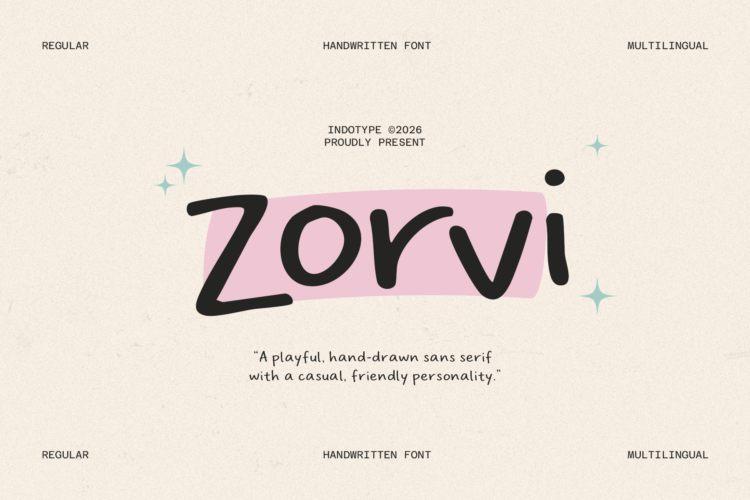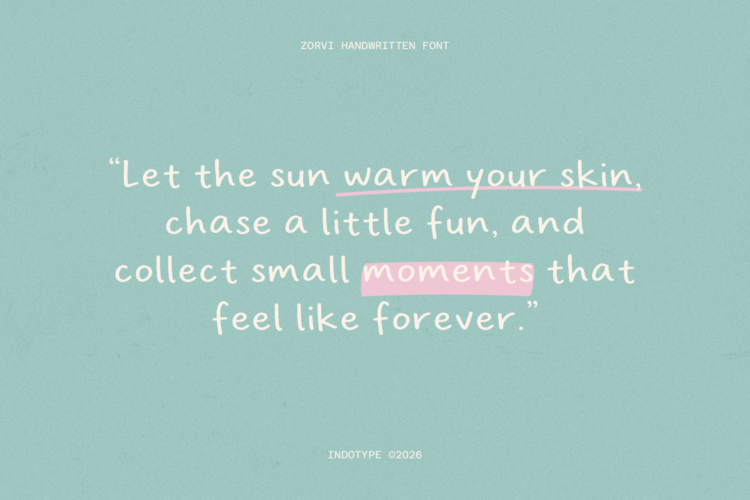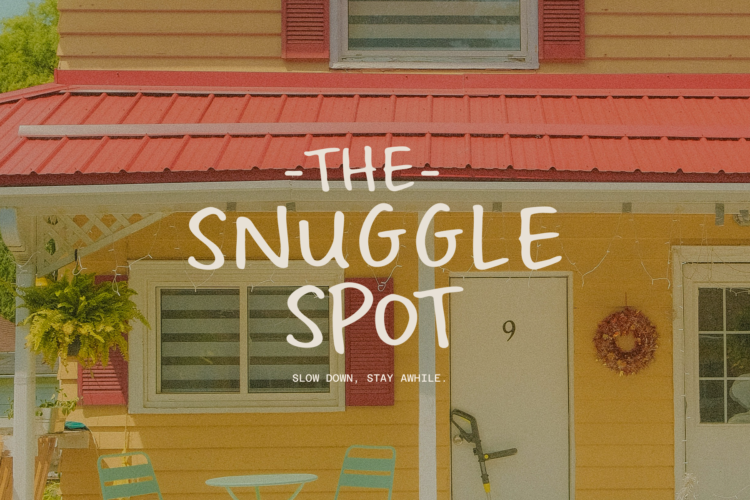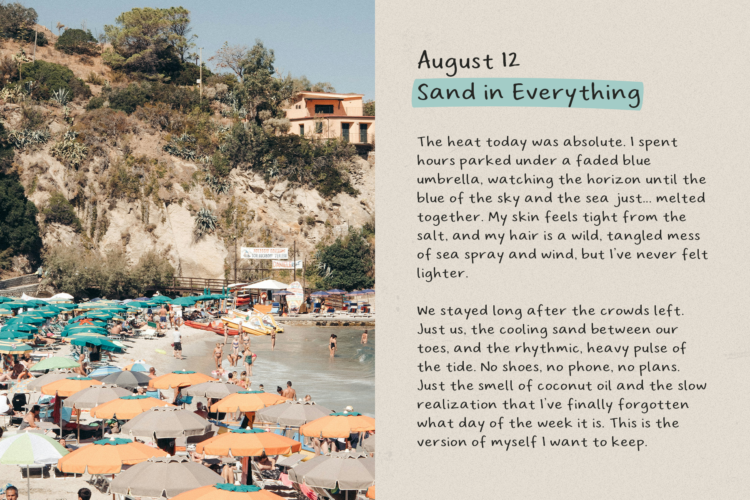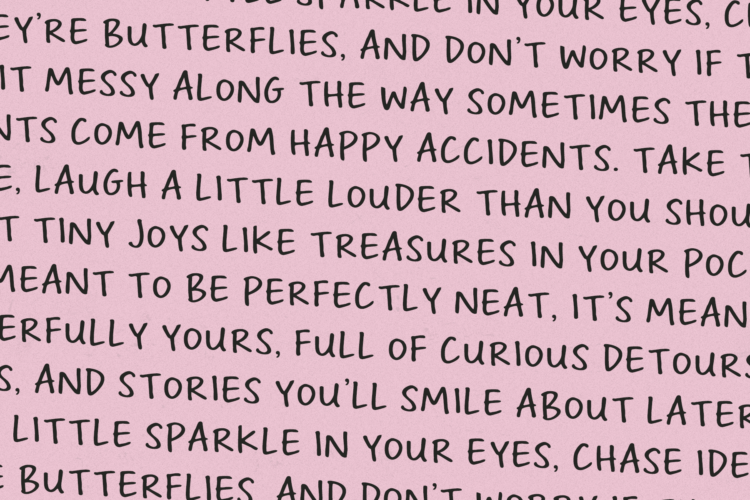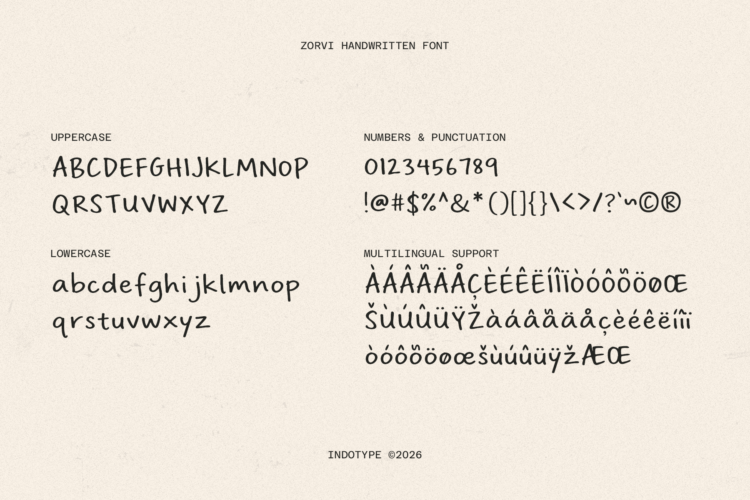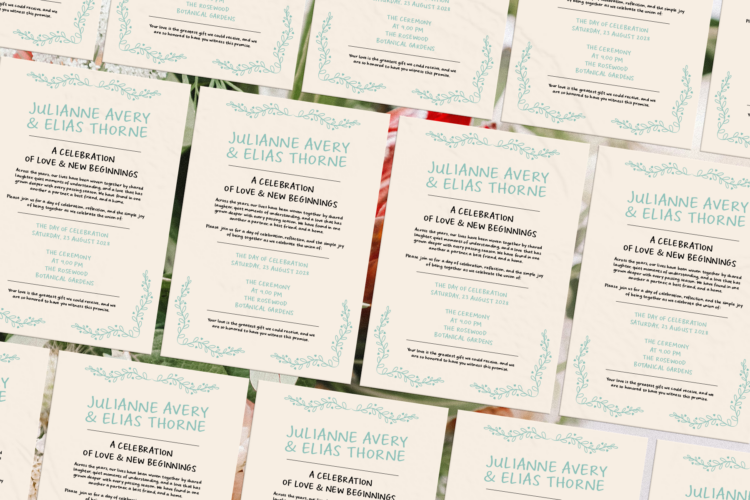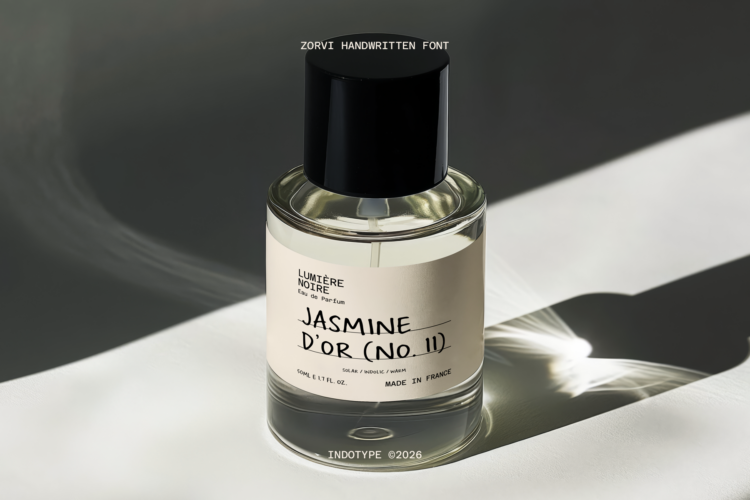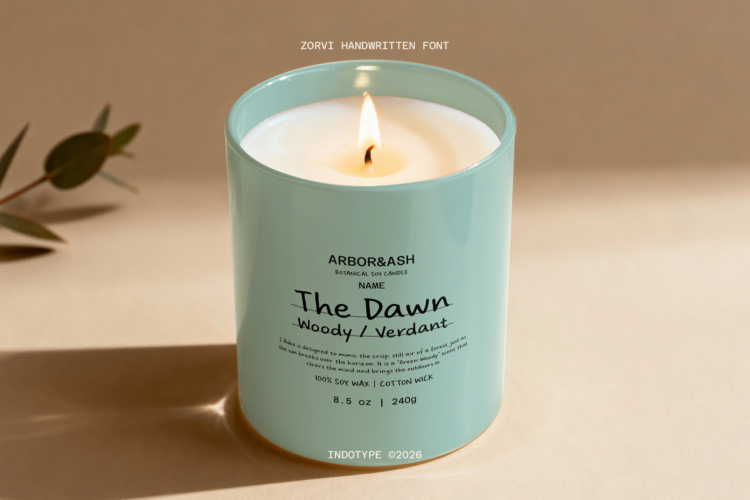
Zorvi is built on a sans serif foundation — no serifs, no flourishes, no decorative terminals — yet it is anything but minimal. Its hand-drawn construction gives every letterform a richness and character that polished geometric sans-serifs simply cannot access. The strokes are bold and rounded, drawn with uniform weight and resolved into smooth, blunt terminals that feel soft and approachable. Slight variations in stroke width, subtle shifts in letter angle, and gentle inconsistencies in baseline rhythm all contribute to the typeface’s essential handmade authenticity — the evidence that a real person made these marks.
The mixed-case design is fluid and naturally proportioned, with lowercase letters that carry sufficient visual weight to hold their own at display sizes without relying on uppercase drama. The Z in the showcase — with its confident diagonal and rounded corners — exemplifies the design’s core character: assertive but never sharp, bold but never aggressive, casual but never careless. The letterforms lean slightly into an informal forward energy without becoming a true italic, maintaining the upright readability of a print hand while retaining the dynamic quality of natural writing.